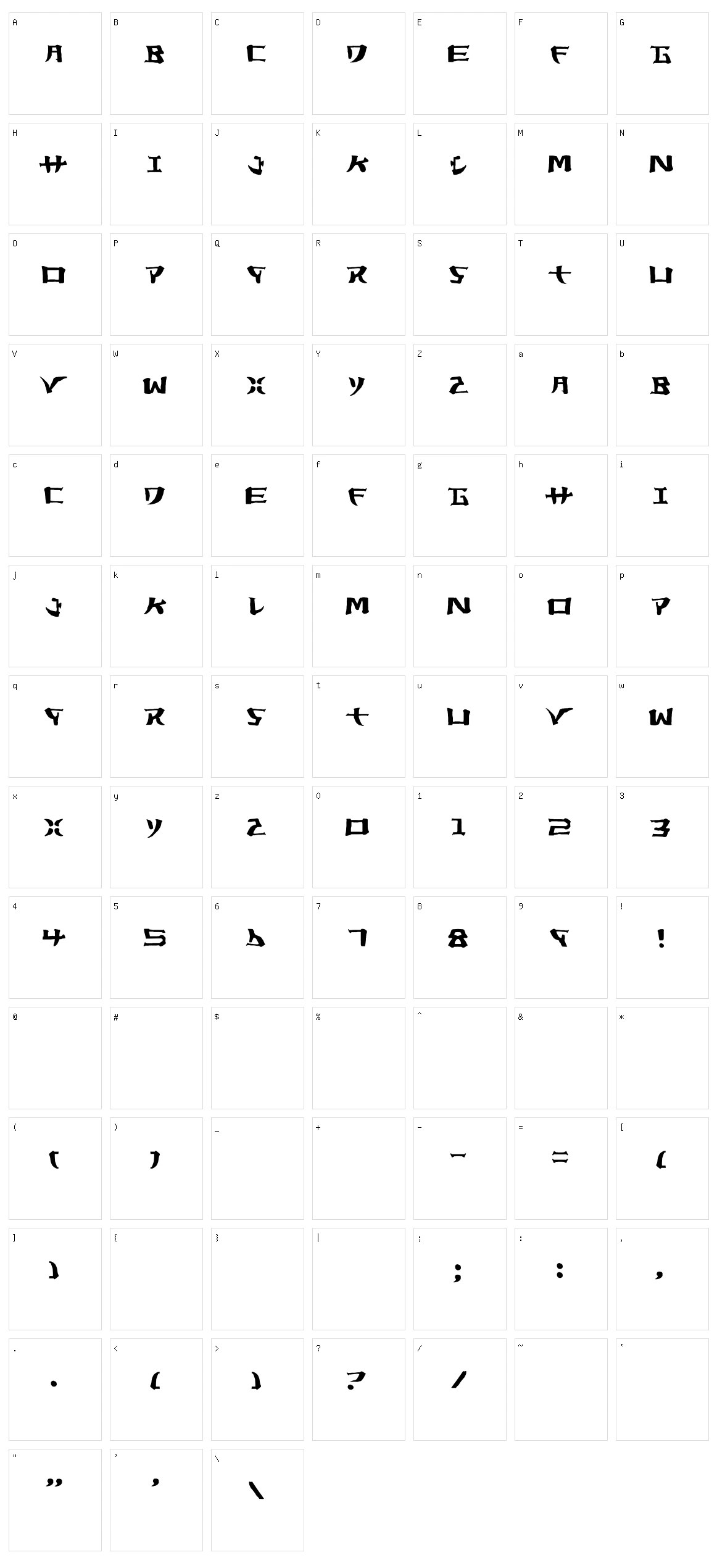
The free font Yorstat is carefully designed by Iconian Fonts, showcasing a thoughtful balance of creativity and usability and falls under the Asian font style. When you download the ZIP file, it contains only 8.91 KB of font files, making it lightweight and quick to download. Please review the license details below to understand permitted usage and distribution rights. If license information is not available, we recommend using this font for personal projects only or contacting the author directly for commercial usage permissions.